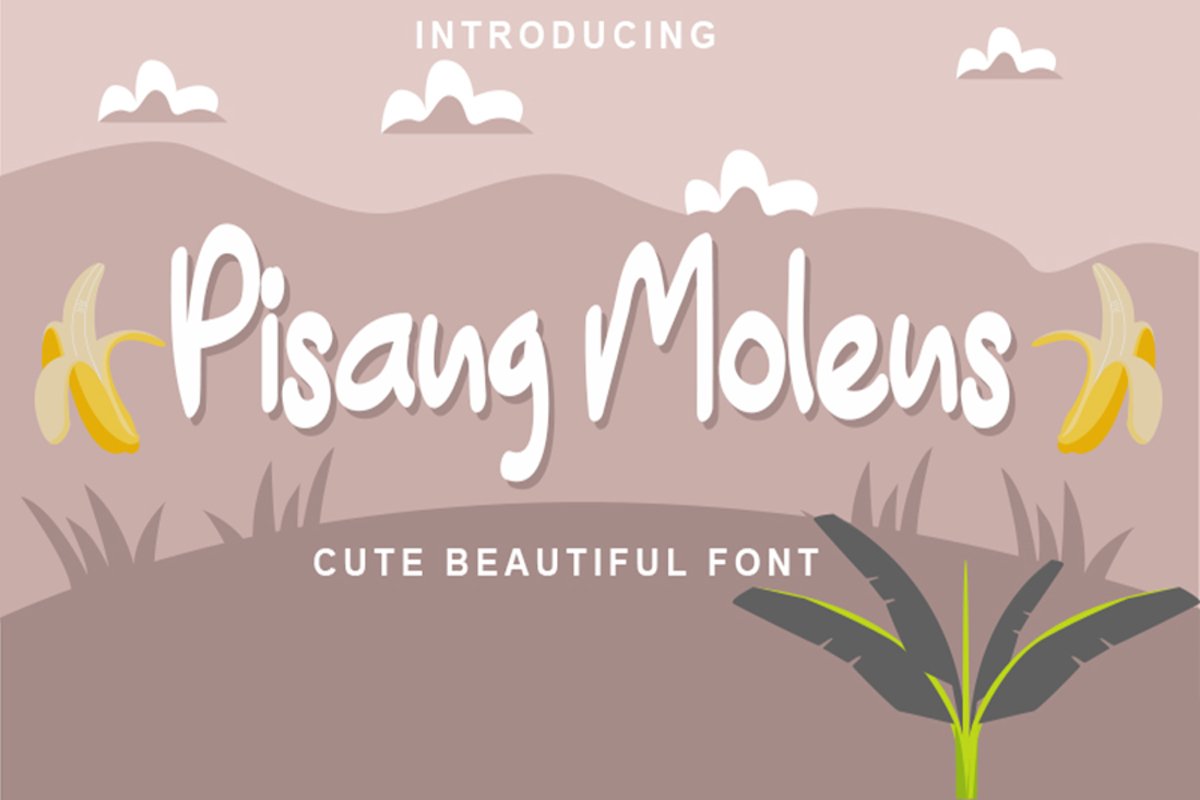
Pisang Molens
Pisang Molens is a magical handwritten font carefully created with a touch of elegance. Whether you’re looking for fonts for Instagram or calligraphy scripts for DIY projects, this font will turn any creative idea into a true piece of art!
+More than 100+ Glyphs
+More than 43 Languages
+PUA-Encoded for many alternates and ligatures